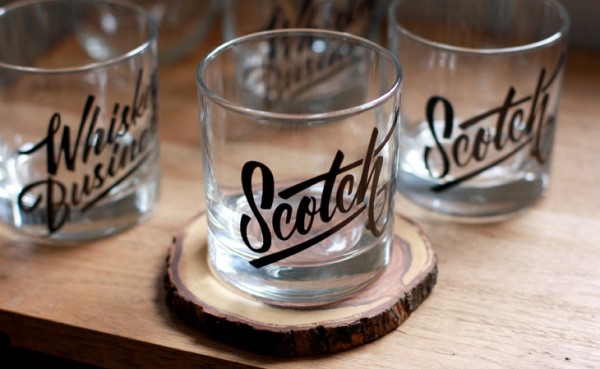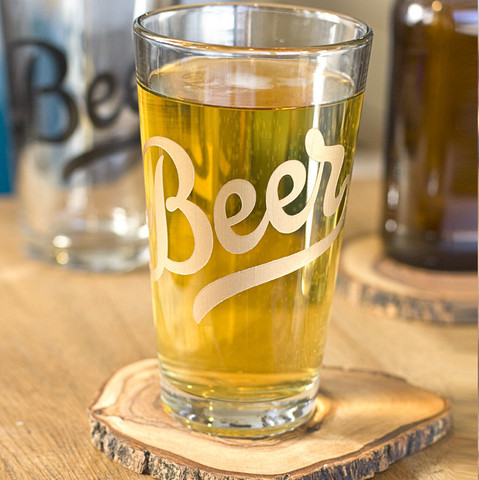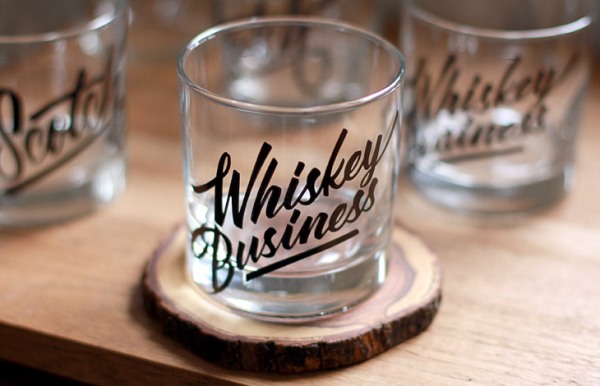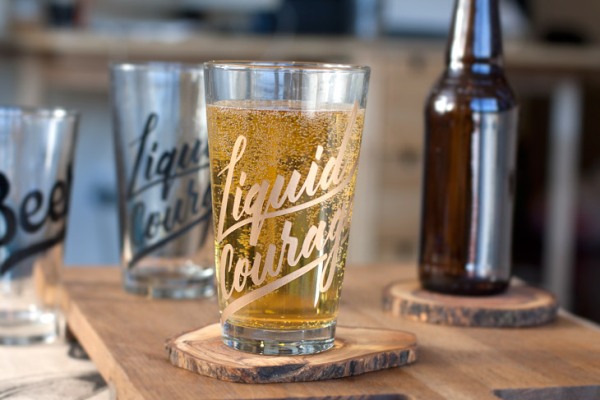
Stylish Typographic Drinking Glasses
New York City based illustrator Ross Muddy is behind the Madison Glass Company and is responsible for the following beauties. Their passion for custom typography and classic sign-painting techniques bring the ordinary glasses into simple, quality, hand painted collectable objects. If you are a bar owner who wants to seperate from the masses or a typographic nerd, you should know that they accept also customized offers. In order to view all the details click here.